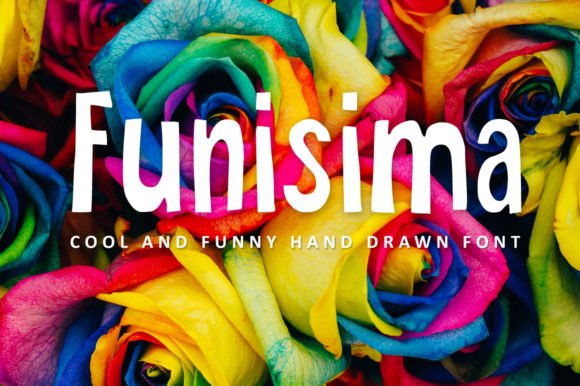
Unlocking Creativity with the Funisima Font
Have you ever stared at a blank canvas, desperately seeking the perfect font to bring your design to life? It’s a feeling many creatives can relate to, and it’s precisely this moment of inspiration that sparked our fascination with the Funisima Font. This quirky, handwritten sans serif font is more than just a pretty face – it’s a game-changer for designers looking to add a unique touch to their work.
Perfect for adding an artistic flair to your designs, the Funisima Font is a valuable addition to any designer’s toolkit. Its playful, handwritten style lends itself beautifully to projects that require a more personal, human touch – from invitations and greeting cards to social media graphics and beyond.
- Unique Characteristics: Funisima Font features a unique, whimsical design with a mix of modern and vintage elements, making it perfect for creative and artistic projects.
Funisima Font Review
Overall, I’d say Funisima Font has some great qualities that make it a decent choice for certain projects, but it’s not without its limitations.
- Funisima Font has a playful, handwritten feel that’s perfect for creating a friendly and approachable atmosphere in branding and marketing materials.
- The font is highly legible, even at small font sizes, making it suitable for body text and smaller-scale designs.
- The font family includes a range of weights and styles, allowing for a good deal of customization and flexibility.
- The font may not be suitable for more formal or professional applications, as its playful nature can come across as unpolished or amateurish.
- The font’s design can be a bit inconsistent, with some characters looking more polished than others.
- The font family may not include as many languages as some users would like, which could be a limitation for global design projects.
Funisima Font is a solid choice for projects that require a friendly, approachable vibe, but it may not be the best fit for more formal or complex designs. With some careful selection and customization, it can be a great addition to a designer’s toolkit.
Funisima Font is ideal for:
- Creativity and design projects
- Typography-based art
- Headings and titles in documents and presentations
For optimal results, use Funisima Font in combination with bold or italic styles to add emphasis and visual interest.
Alternatives to Funisima Font
Great Vibes is a beautiful, elegant script font that is perfect for creating a sense of sophistication and luxury. It is ideal for use in wedding invitations, luxury branding, and high-end packaging. Great Vibes has a more refined and polished look compared to Funisima Font, which has a more playful and whimsical feel.
Carolyna Pro is a modern script font that is perfect for creating a sense of elegance and sophistication. It is ideal for use in branding, packaging, and advertising. Carolyna Pro has a more refined and sophisticated look compared to Funisima Font, which has a more casual and playful feel.
Alex Brush is a beautiful, elegant script font that is perfect for creating a sense of luxury and sophistication. It is ideal for use in wedding invitations, luxury branding, and high-end packaging. Alex Brush has a more refined and polished look compared to Funisima Font, which has a more playful and whimsical feel.
What is the recommended font size for the Funisima Font?
The Funisima Font is designed to be highly legible at a wide range of font sizes. However, for optimal readability, we recommend using font sizes between 12pt and 24pt. At smaller font sizes, the font may become difficult to read, while larger font sizes may be too bold. Experiment with different font sizes to find the best fit for your design.